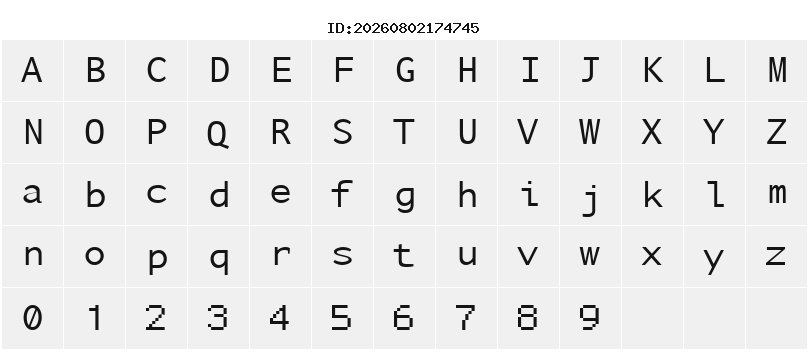
Nu Sans Mono Demo Preview
• Font Name: Nu Sans Mono Demo
• Full Font Name: Nu Sans Mono Demo
• Designer: Marty P. Pfeiffer
About Nu Sans Mono Demo.ttf
Nu Sans Mono Demo.ttf is a modern, elegant sans-serif font designed for ultimate readability and visual harmony. Perfect for branding, headlines, web design, and print materials.